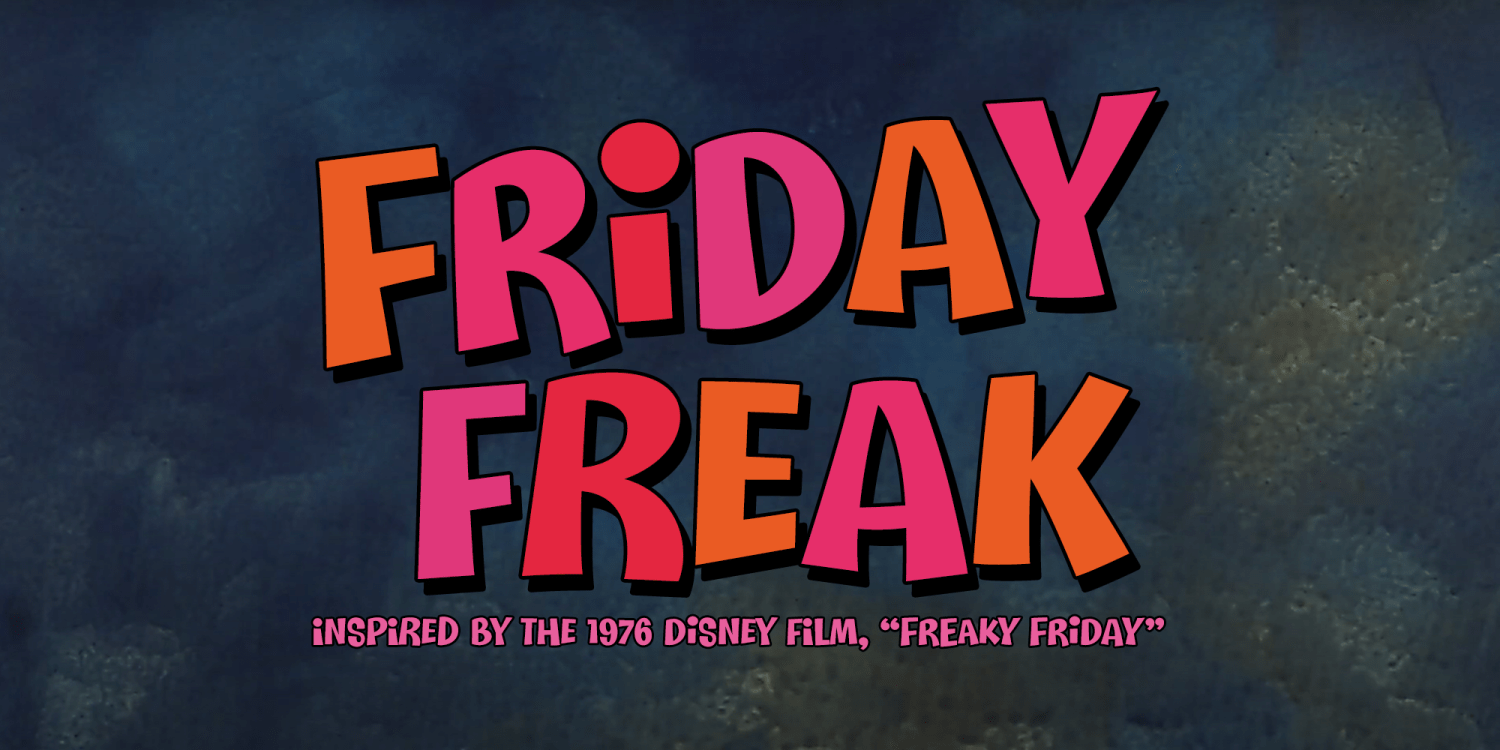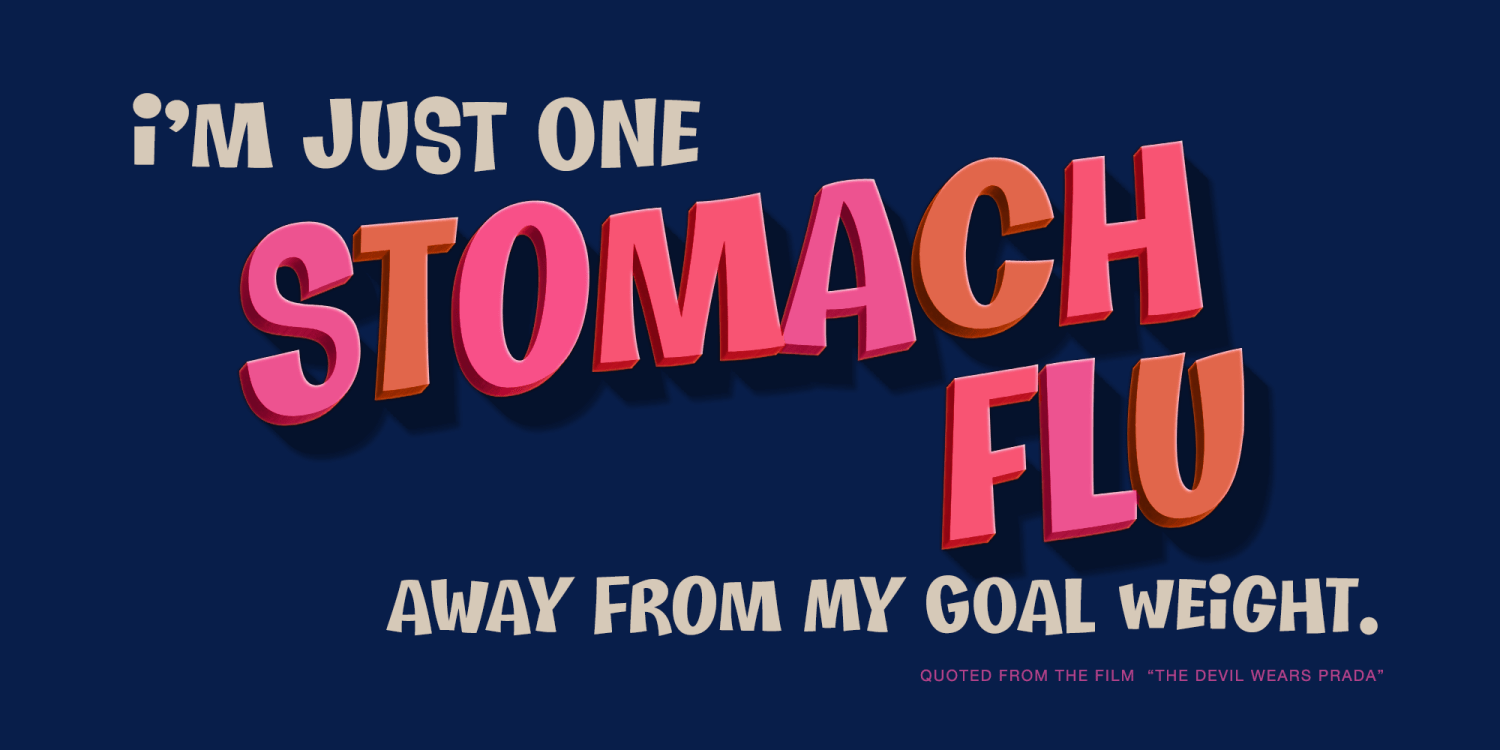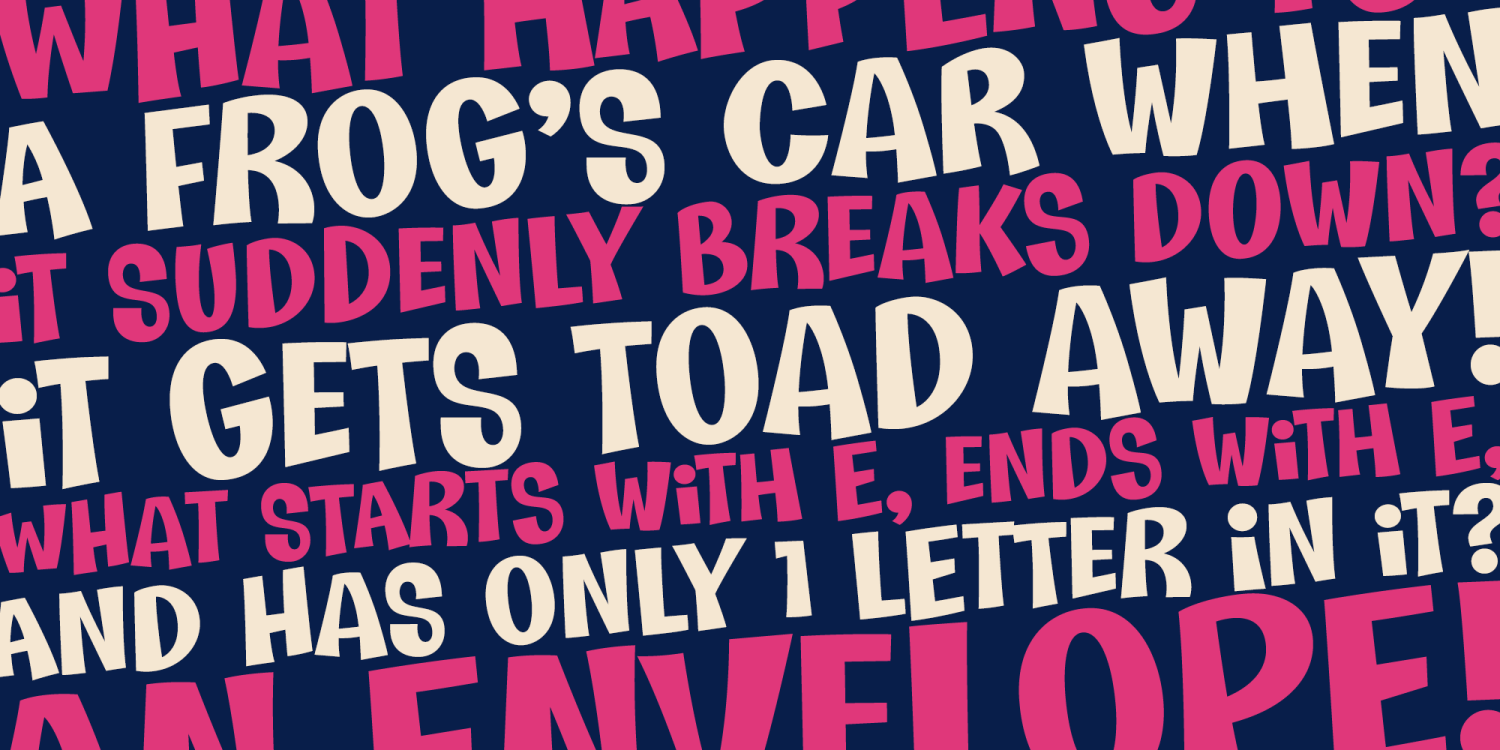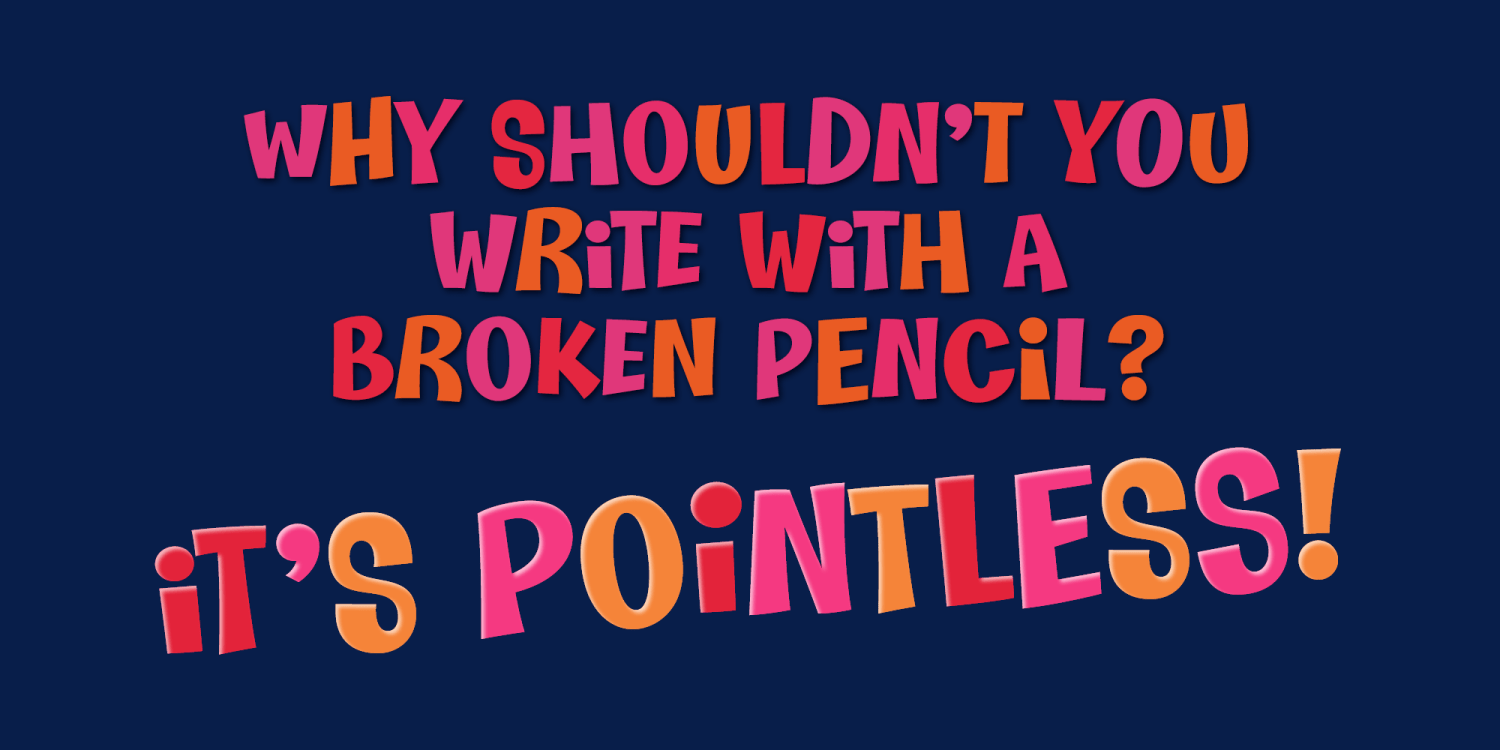
Friday Freak PB
Friday Freak PB is a playful font inspired by the titling of the 1976 Disney film, "Freaky Friday". This font has a slightly clumsy stumble to it, adding to its personality and appeal. From slightly weird weighting to a ligatures feature that will auto-shuffle all-caps and all-lowercase settings to have a mix of both, keeps typesetting lively.
Stir things up and get a little crazy with Friday Freak today!